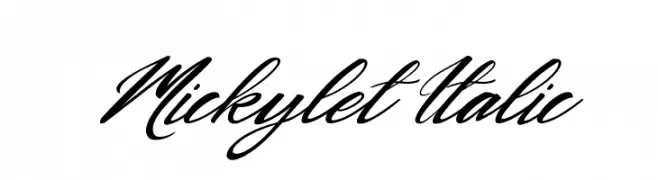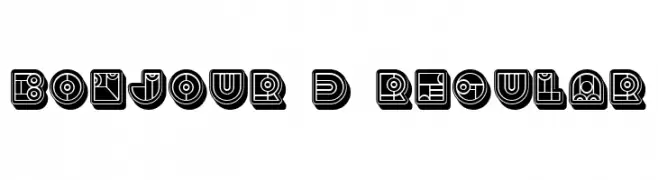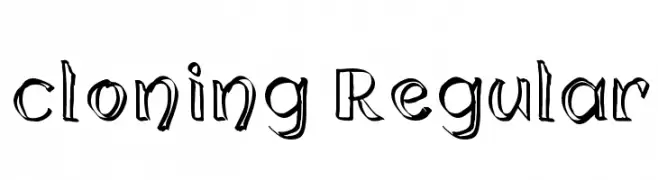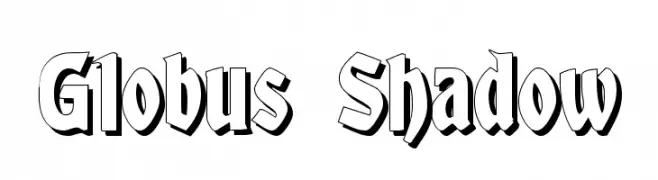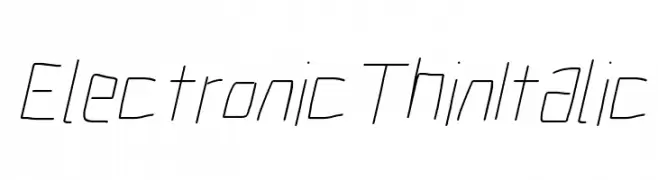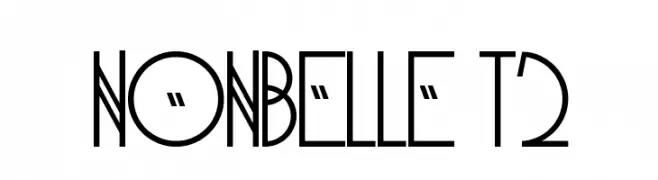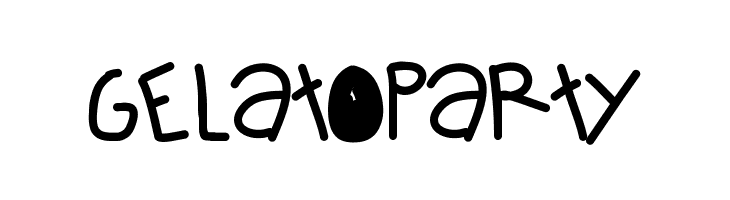
A playful, casual handwritten font with fluid, irregular strokes.
An elegant, flowing script font with bold, italicized strokes and ornate flourishes.
A casual, handwritten font with a personal and authentic touch.
A bold, geometric 3D font with Art Deco influences and intricate patterns.
A lively, cursive handwritten font with smooth, flowing strokes.
An elegant, flowing script font with ornate uppercase and smooth lowercase letters.
A playful, hand-drawn font with irregular strokes and artistic flair.
A bold, shadowed font with a three-dimensional effect, perfect for striking designs.
A thin, italicized font with a futuristic and electronic design.
A modern geometric font with high contrast and stylish, elongated forms.